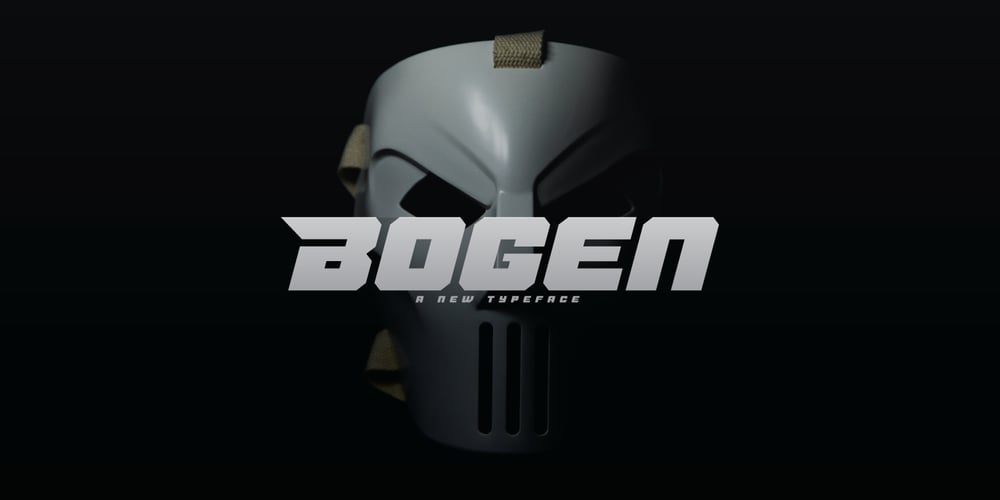
Bogen Font Family was designed by Ari Juanda and published by Linecreative. Bogen contains 1 styles and family package options. Bogen – Bold italic font with sharp angles for dynamic effects.Use ligature characters to give you unlimited designs, this font is great for your work such as posters, logos, branding, covers, banners, t-shirts and headers, or even large-scale artworkBogen , offers you: Bogen -italic bold font including Upper & Lowercase characters(ALL CAPS has a different form characte), Ligatures Character Supports Multi linguage (Latin Western Europe), Numbers and Punctuation